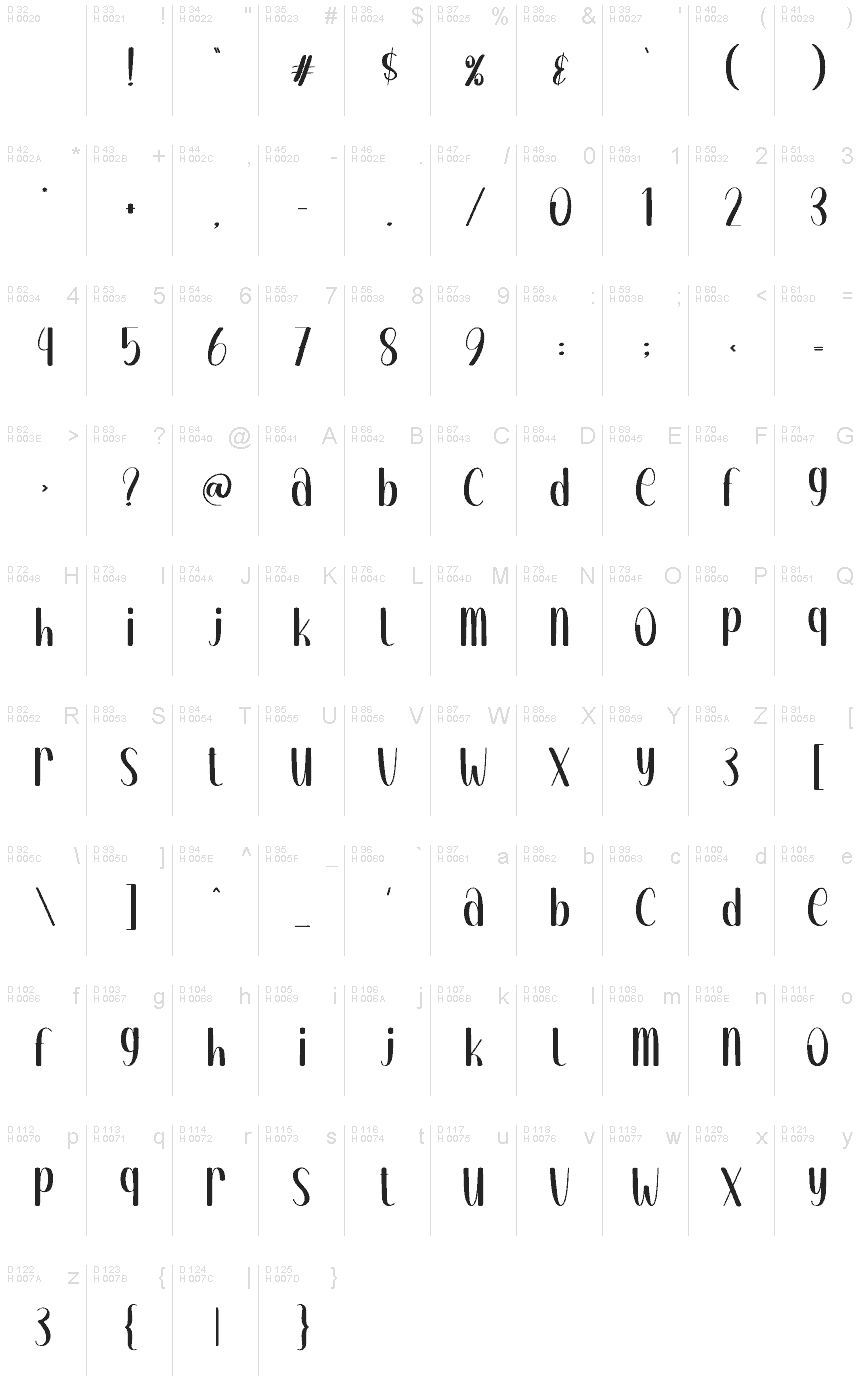
Loading
Loading font by Andi Moz is a free calligraphy font with curved, expressive, and artistic character embodied in each display that was created. It is slightly decorative and designed in a condensed manner to visually fit in compatible design projects. Attributing its style to mid-20th-century design trends, it evokes a sense of nostalgia with a unique flair that easily blends into retro-themed contemporary works.